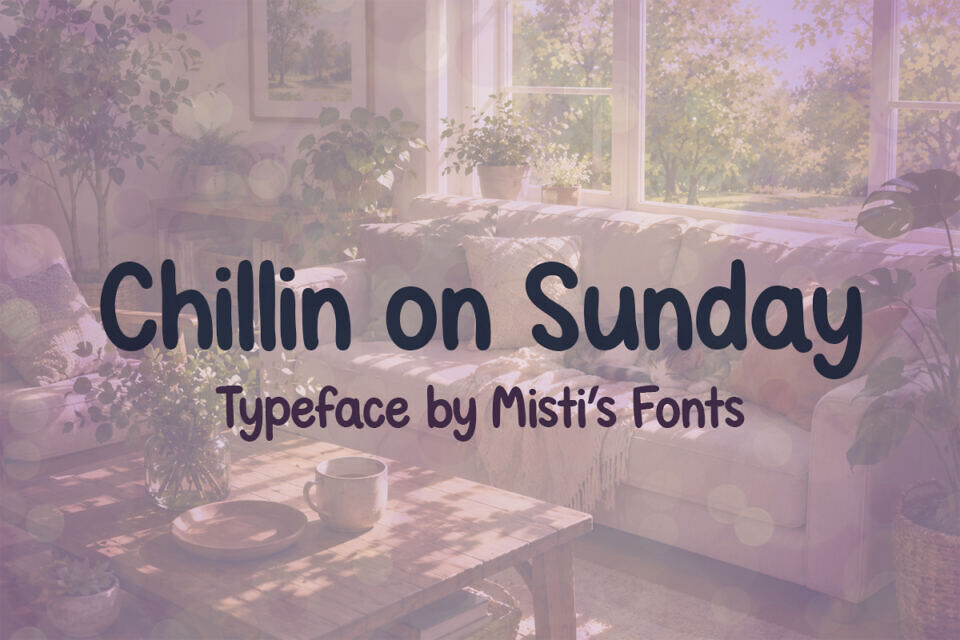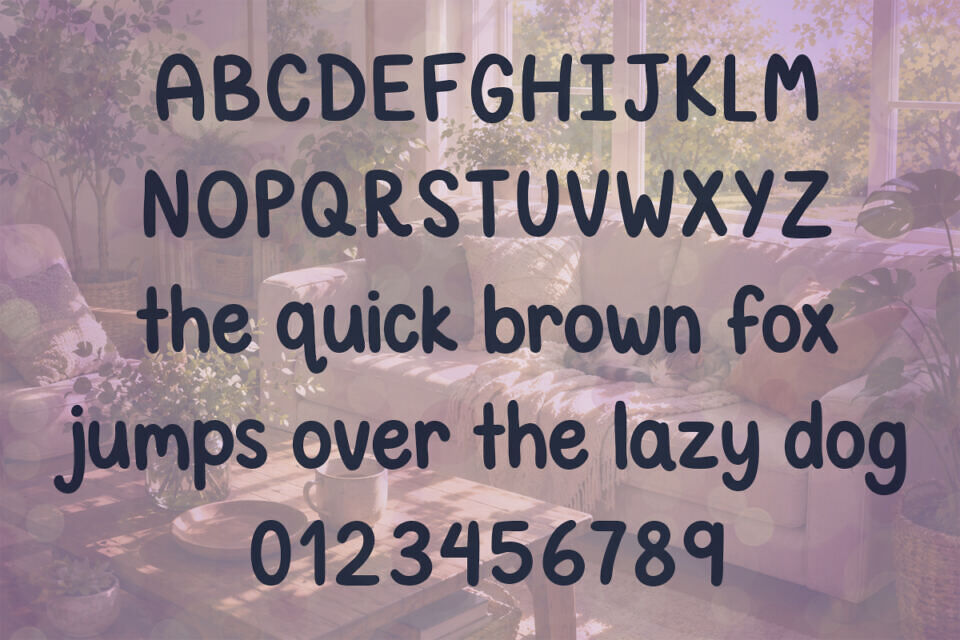
Chillin on Sunday unveils its charm as a reflection of nonchalance combined with sophistication. Unbuckle the strain of the daily grind and embrace the ease that comes with this unique, casual handwriting font. Renowned for its simplicity, “Chillin on Sunday” eases legibility, making it a perfect fit for any design that intends to convey relaxation and informality.